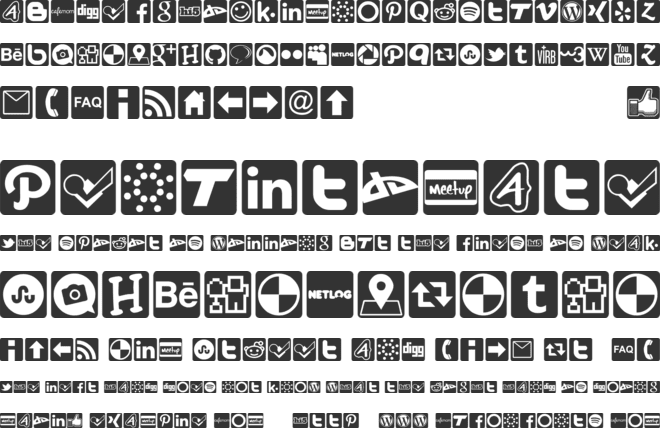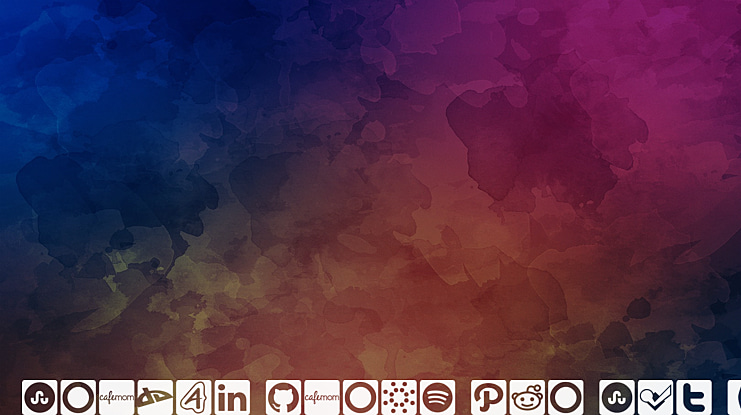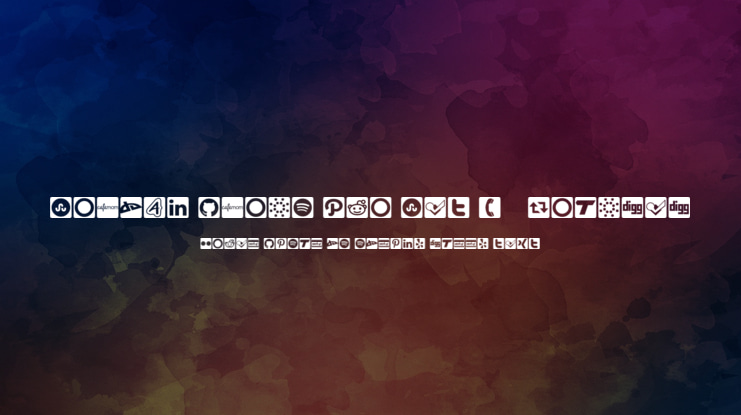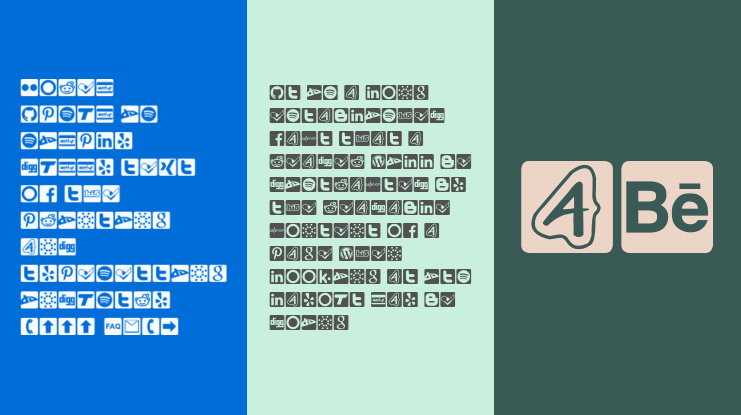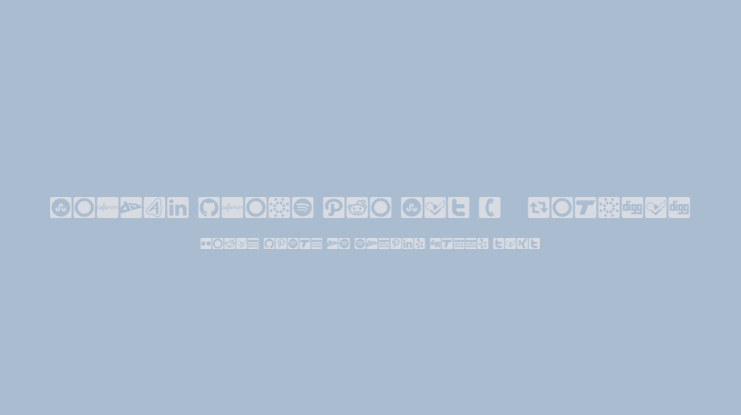
Social Icons Pro Set 1 - Rounded Font
Presenting Social Icons Pro Set - Rounded for web designers and graphic designers. Social network icons include Facebook, Twitter, LinkedIn, Tumblr, Yelp, Pinterest, Google+, Path, plus dozens more social sites. Also includes commonly used icons like email, phone, home and more.